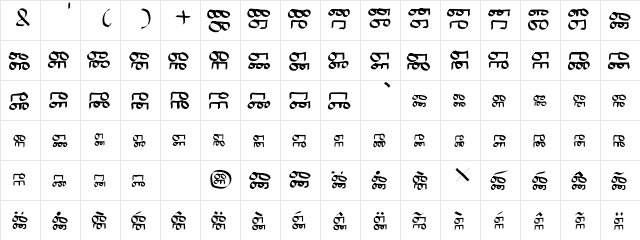
BinaryVerges Regular
| Foundry | Albert Verges projects |
| Designer | Albert Verges |
Design Context for BinaryVerges Typeface
BinaryVerges is a composed and adaptable typeface that performs quietly and consistently across a wide range of design contexts.